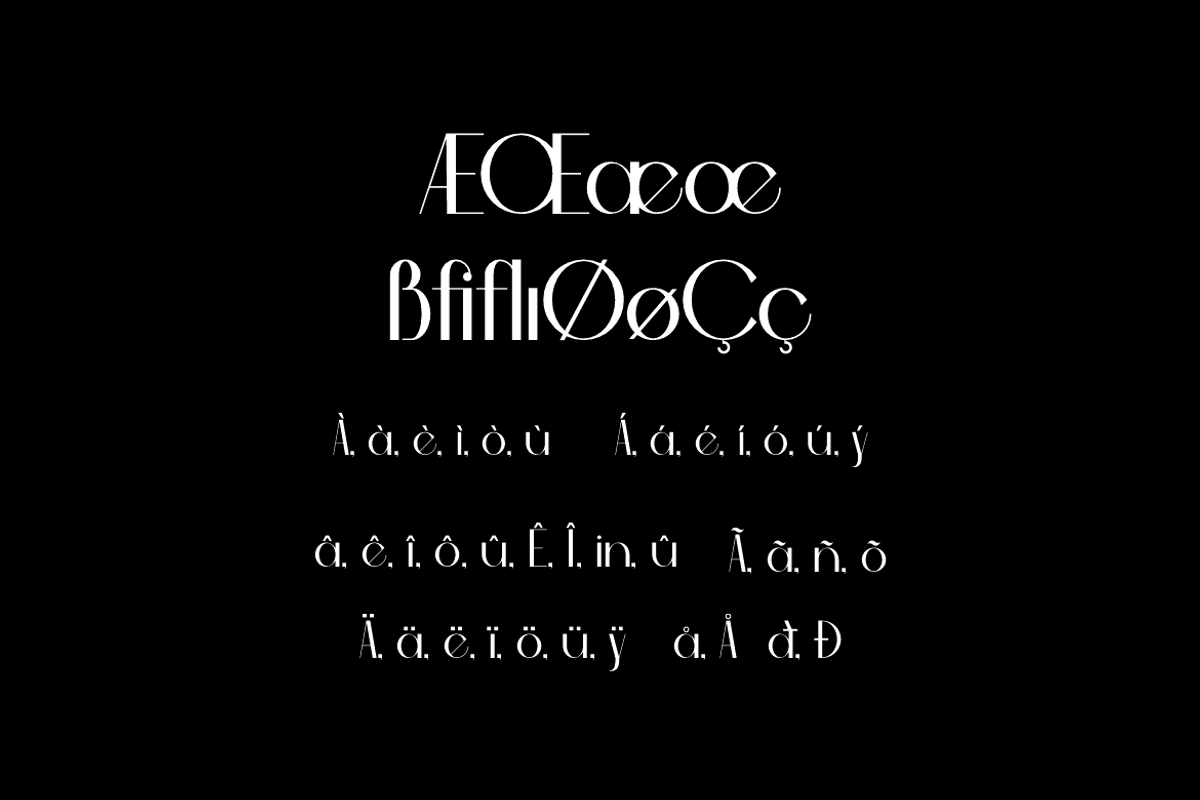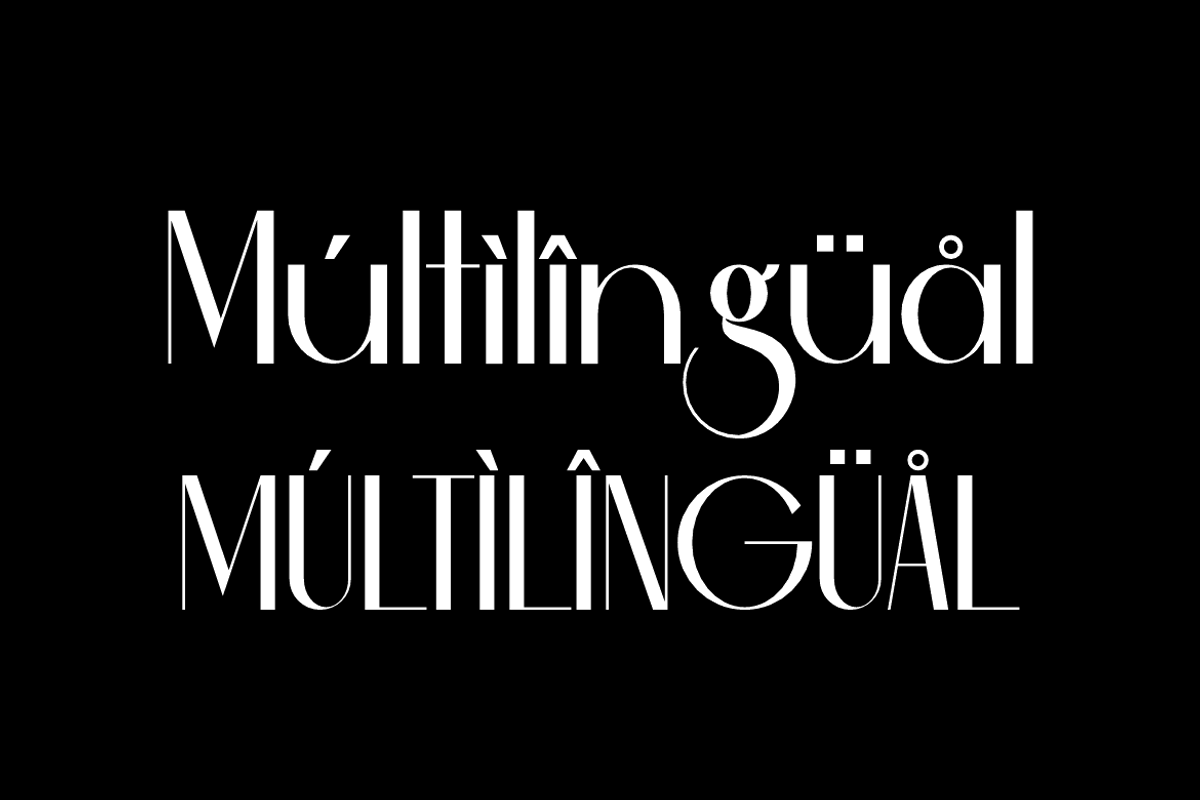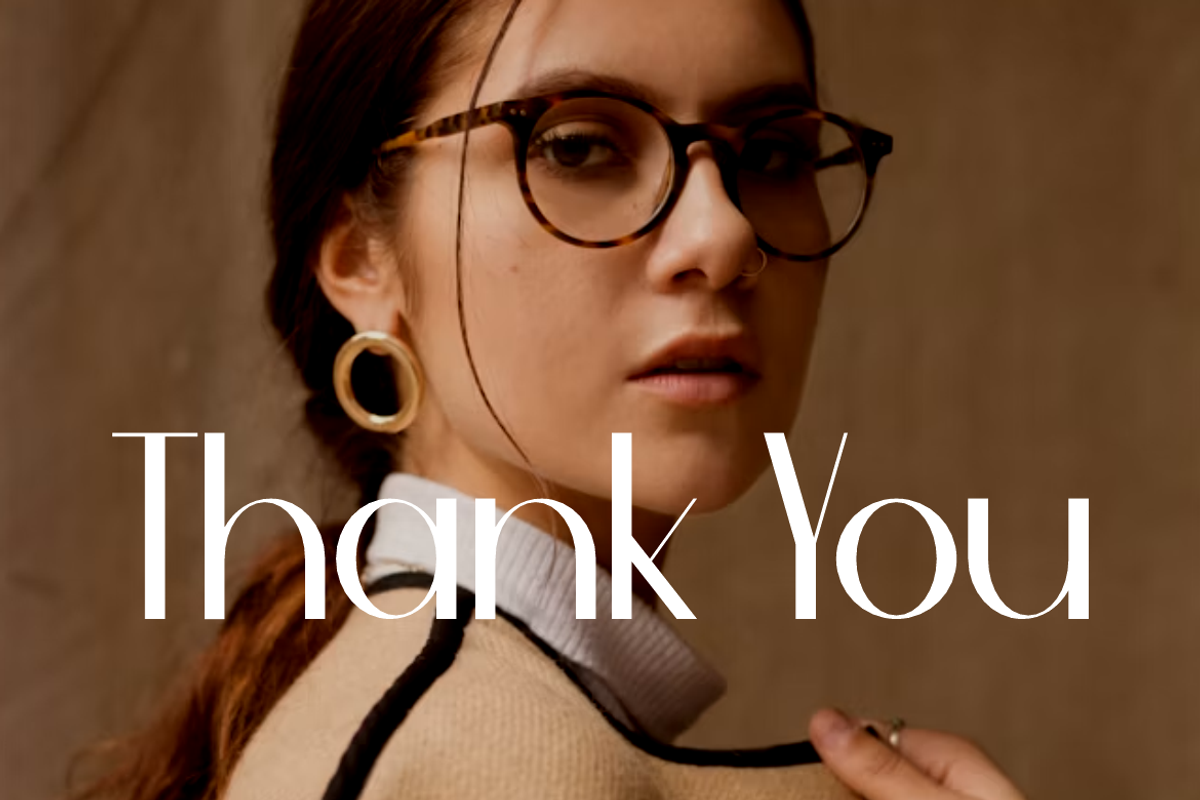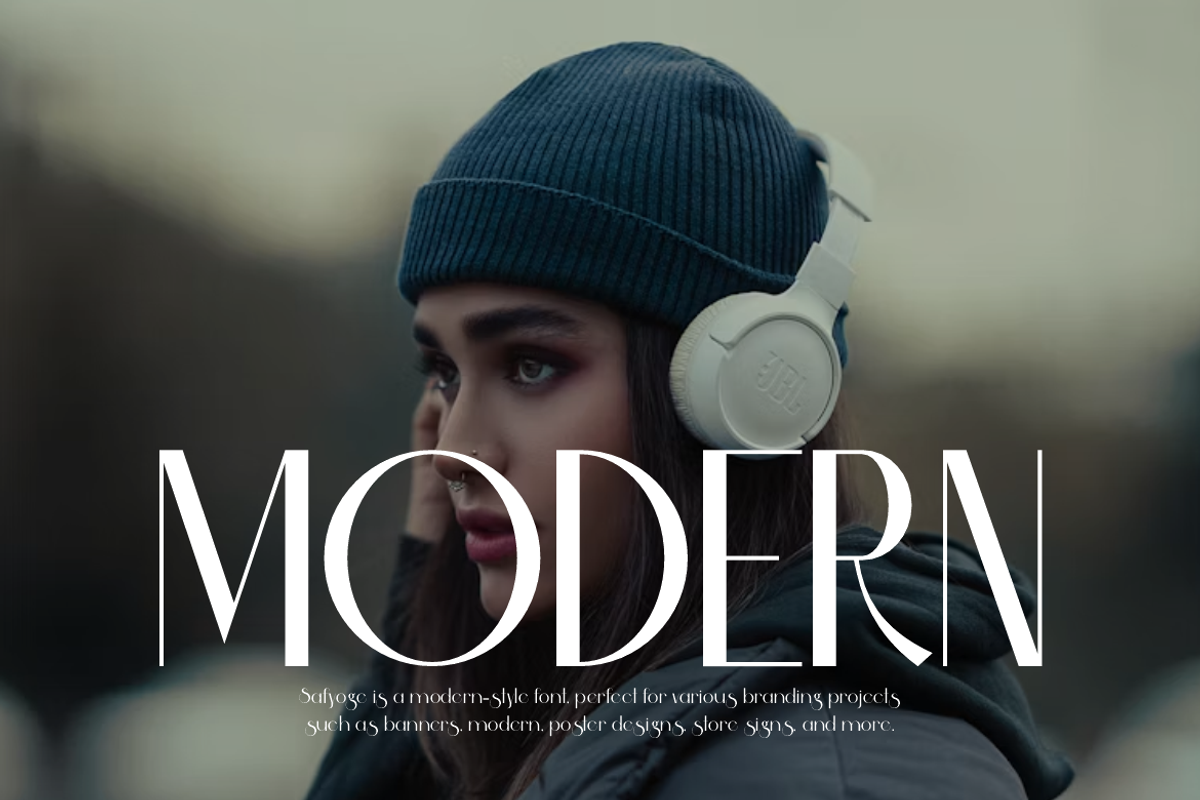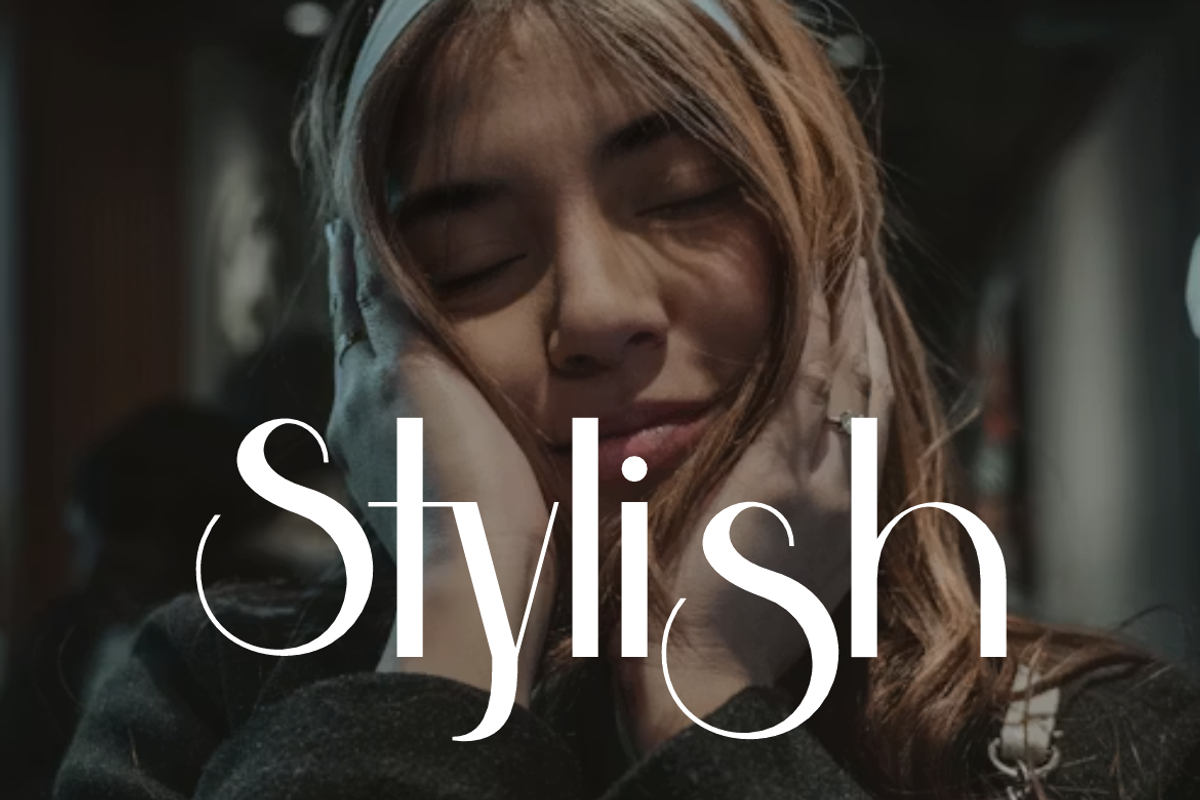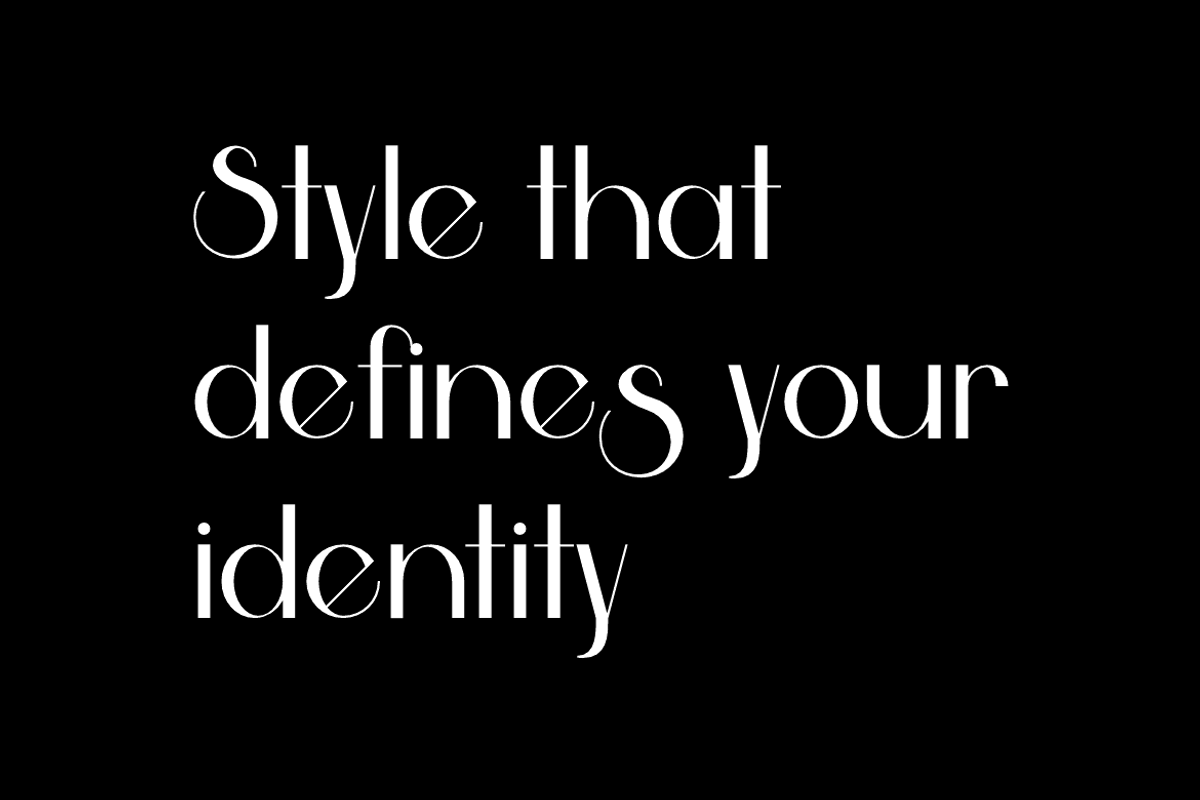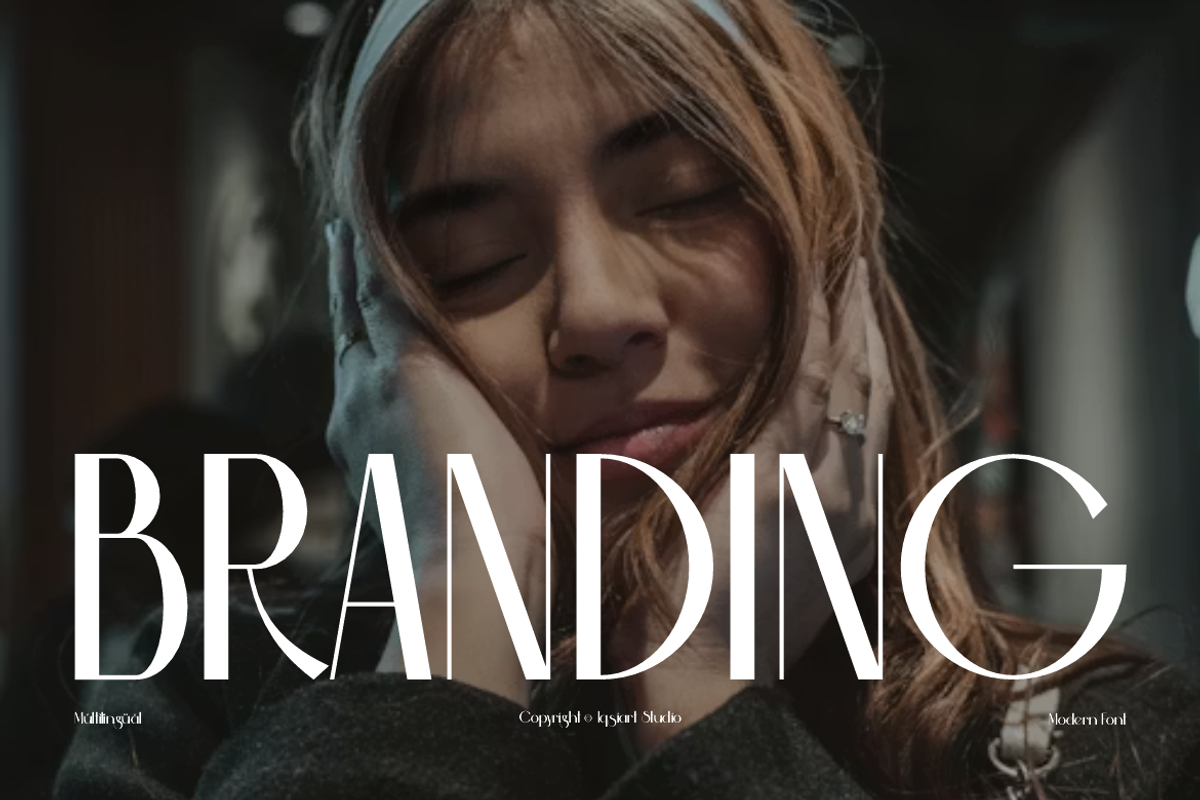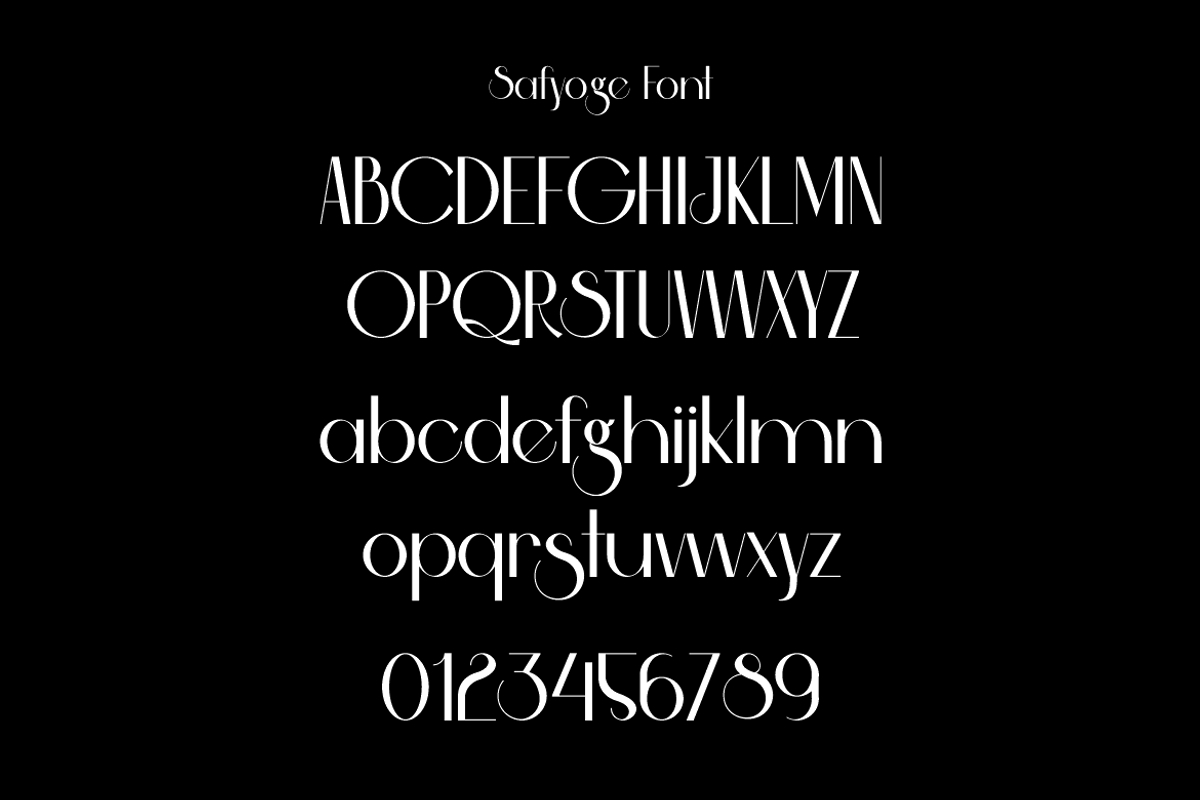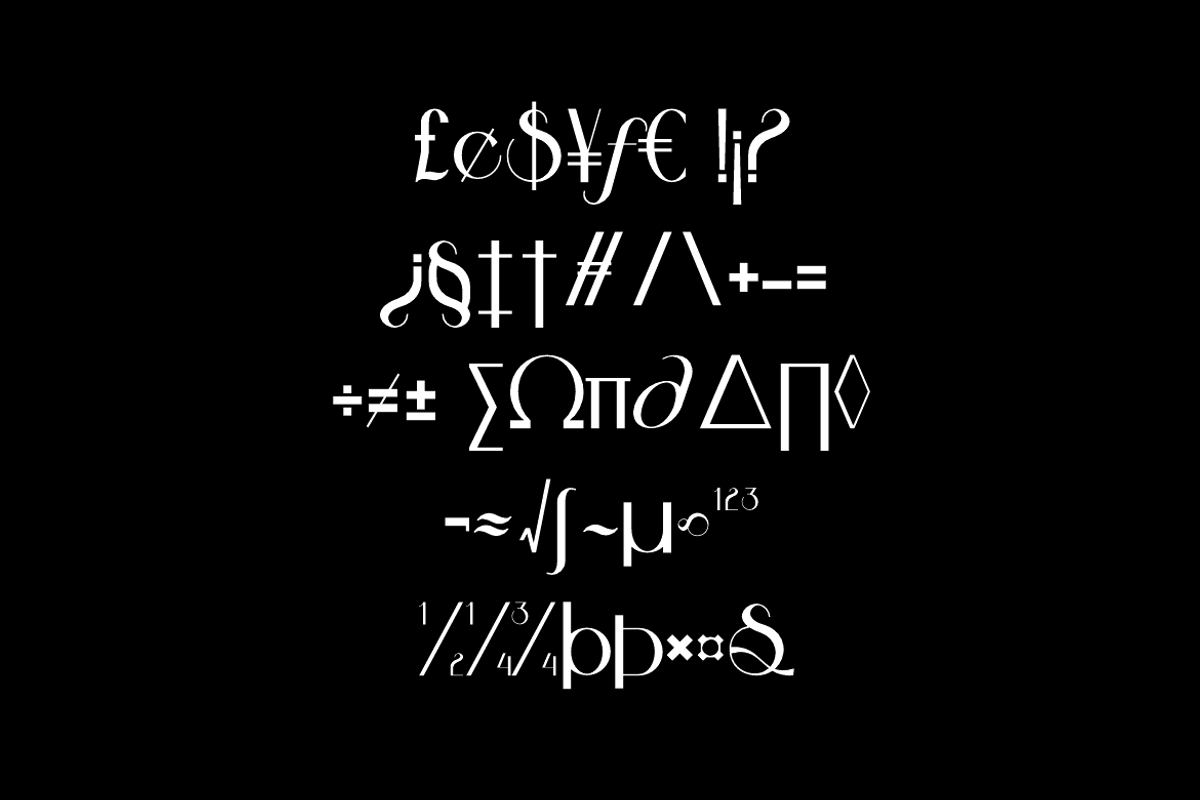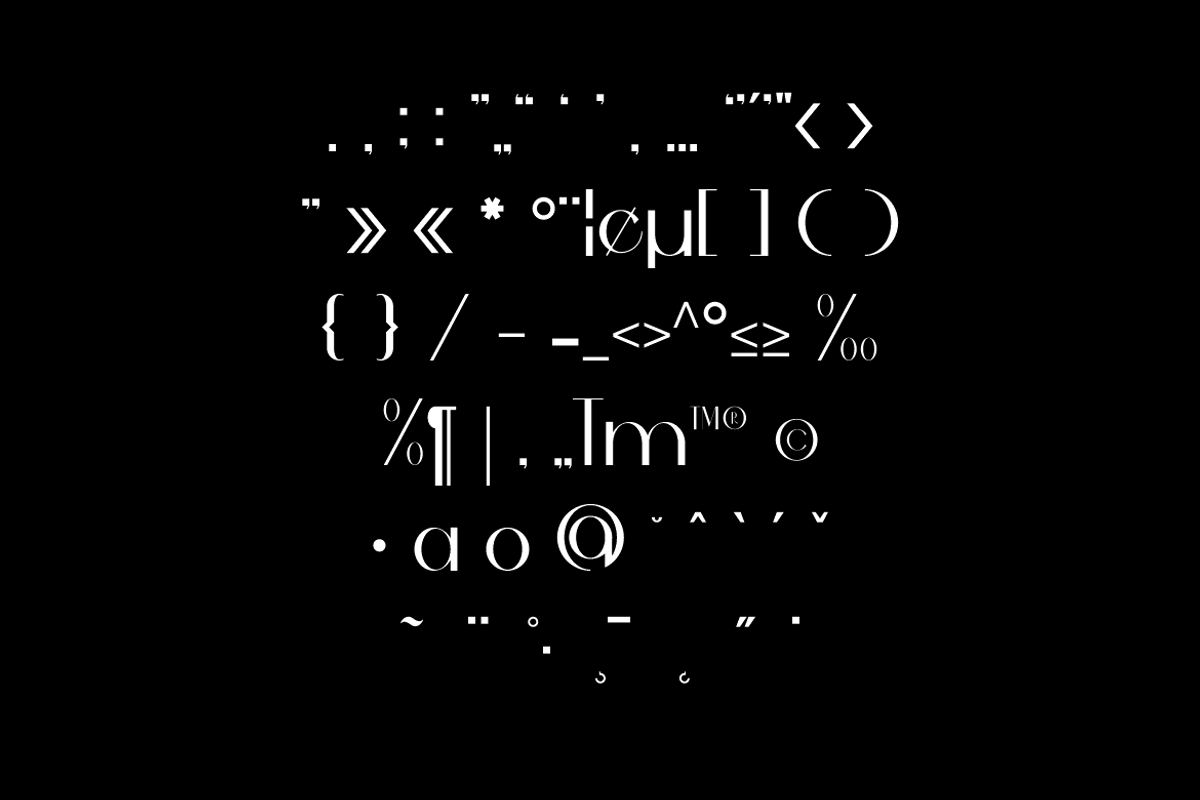
Safyoge - Modern Stylish Font
Safyoge Font is a modern and authentic display typeface
that suits a variety of design needs. We offer a wide range of themes